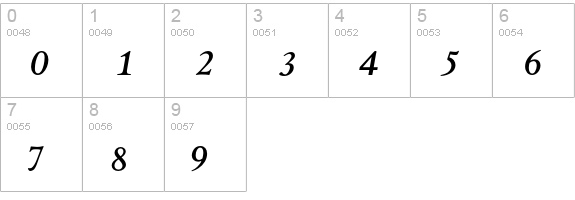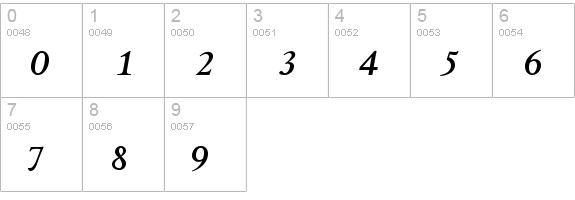
AsdanteMediumItalic Font Details
Asdante Medium Italic font exudes elegance and sophistication with its sleek and modern design. The italicized style adds a touch of flair and sophistication to any text, making it perfect for branding, editorial design, and more. The fluid curves and subtle slant of the characters create a harmonious flow that is both pleasing to the eye and easy to read. What makes Asdante Medium Italic font even more appealing is that it is available for free download at FontsMarket.com. This means that you can access this high-quality font without any cost, allowing you to elevate your projects without breaking the bank. Whether you're working on a website, a poster, or a logo, Asdante Medium Italic font is a versatile choice that will add a touch of style and professionalism to your designs. Download it today and see the difference it can make in your creative endeavors.